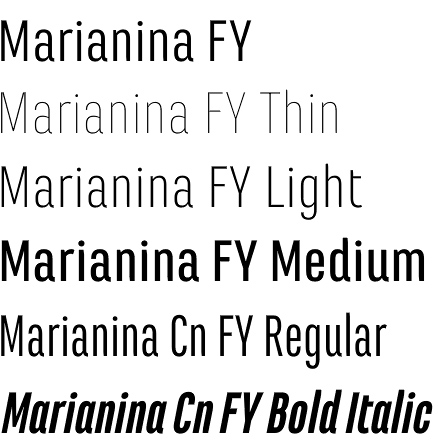
Marianina FY font
Marianina FY font family is what we usually describe as super-family of 24 fonts designed by Fontyou. From poster design to editorial layout, Marianina FY is intended for a range of uses – a worthy addition to any designer’s font collection. It is designed with own identity and logic mixing the pure math and geometry with optical balance resulting in a very distinguished and useful font family. Another great feature of Mariannina FY font family are the true italics developed as separate fonts relevant to each of the weights. It also supports ligatures and full array of Latin diacritics. Clear letterforms, precise outlines, excellent readability, contemporary look – all these turn Marianina FY font family into a best choice for versatile designe needs – from very small texts and descriptions, to large sizes for headlines and posters.
Designers: Alisa Nowak, Jérémie Hornus
Publisher: Fontyou